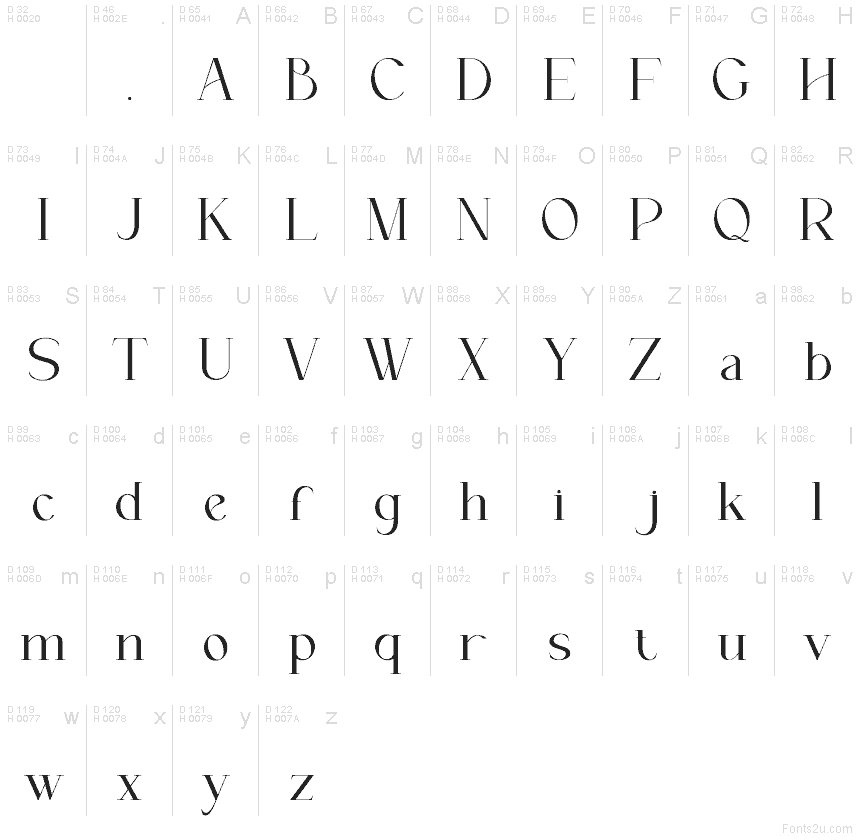
HEVERLY Regular
Heverly font by Achmad Yani Flawless And Co. is a free serif typeface that trades on sculpted contrast and elegant, knife-edge details. Its letterforms feel carved rather than drawn—sleek verticals, airy counters, and crisp, tapering serifs that catch the light like polished metal. The rhythm is tight and poised, giving headlines a poised, couture presence without losing readability.
Using Heverly, you’ll get instant gravitas for boutique branding, luxury packaging, editorial titles, wedding stationery, beauty campaigns, and statement posters. This free font shines when set large with generous spacing, letting those graceful curves breathe. For body copy or captions, pair it with a quiet geometric sans to keep the spotlight on Heverly’s refined silhouette.